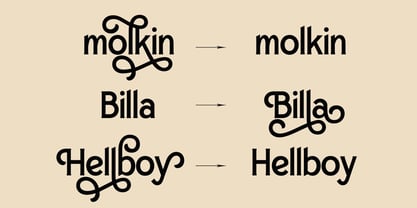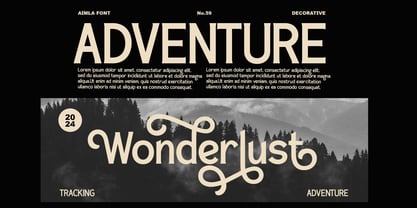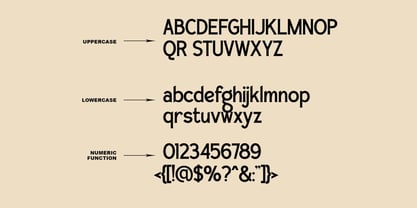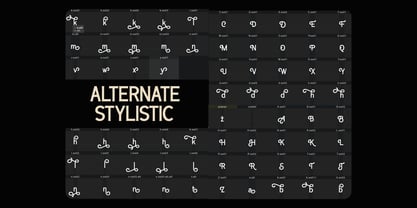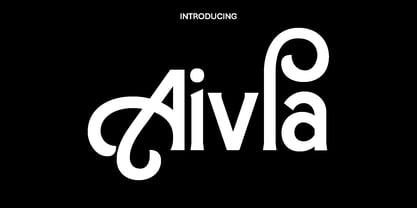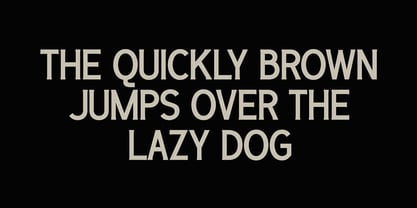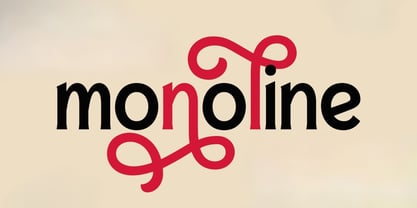
Aivla
by Only Fonts
The Aivla Font Family was designed by Olivia Love and published by Only Fonts. Aivla contains 1 styles. More about this family
Aivla is a versatile and stylish typeface designed to elevate a wide range of projects including books, magazines, logos, branding, photography, quotes, blog headers, posters, and advertisements. With its carefully crafted uppercase and lowercase letters, numerals, and multilingual support, Aivla provides functionality without compromising on aesthetic appeal. The inclusion of stylistic alternates and OpenType features allows for creative flexibility and sophisticated typography customization. This font’s clean yet expressive style makes it ideal for both display and body text, ensuring clarity and visual interest across various media. Features: – Uppercase & Lowercase – Numerals & Punctuation – Multilingual Support – Stylistic Alternates Perfect for modern editorial design, branding, social media visuals, and any creative project that requires a fresh, functional, and adaptable font.
Designers: Olivia Love
Current Foundry: Only Fonts